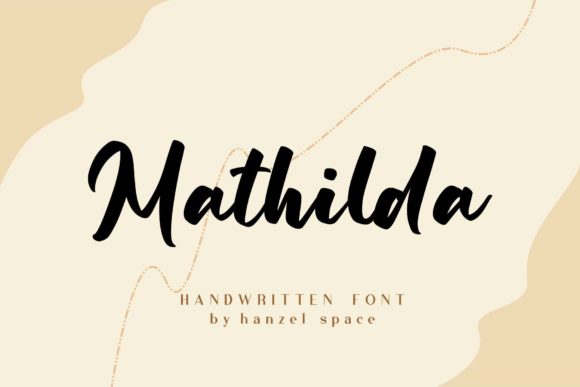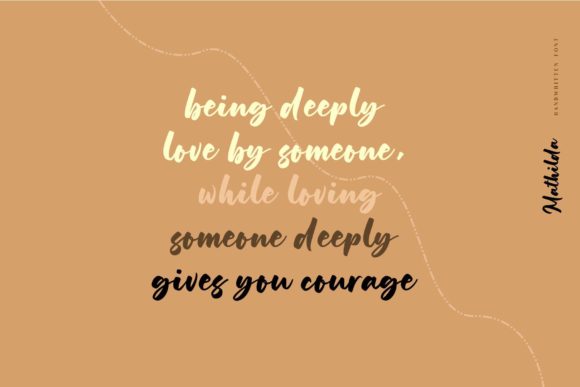
About Mathilda Font
Mathilda is a romantic and sweet calligraphy typeface that exudes elegance and charm. With its characters dancing along the baseline, this font adds a touch of whimsy and personality to your designs.
Mathilda is a versatile font that can be used for a wide range of purposes. Whether you’re creating logos, wedding invitations, headings, t-shirts, letterhead, signage, labels, news articles, posters, or badges, Mathilda will bring a sense of sophistication and beauty to your designs.
The casual yet elegant touch of Mathilda makes it perfect for projects that require a balance between informality and refinement. It strikes the right balance between being playful and sophisticated, making it suitable for both formal and informal contexts.
The flowing and graceful strokes of Mathilda create a sense of movement and fluidity, adding a dynamic element to your designs. It captures the essence of handwritten calligraphy, giving your projects a personal and handcrafted feel.
Mathilda’s versatility extends to its ability to be used in various sizes and contexts. Whether you need a delicate script for small details or a prominent headline font that demands attention, Mathilda adapts beautifully to different scales.
The wide range of applications for Mathilda showcases its flexibility and adaptability. It can be used in both digital and print media, allowing you to incorporate its romantic and sweet charm into various design projects.
Overall, Mathilda is a captivating calligraphy typeface that brings a touch of romance and elegance to any design. Its versatility and beauty make it a valuable asset for creating visually appealing and memorable designs.